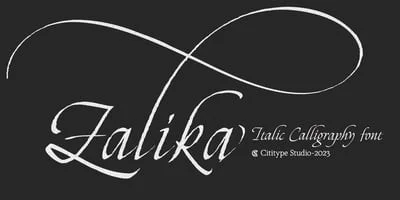
Zalika Font
The Zalika Font is excellent for fashion magazines, beauty product packaging, elegant wedding invitations, luxury jewelry branding, boutique hotel signage, feminine lifestyle blogs, cosmetic advertisements, and high-end spa materials. This sophisticated typeface works beautifully in applications where grace and refinement are essential, making it perfect for brands that target discerning audiences who appreciate delicate beauty and timeless elegance.
What makes Zalika Font exciting is its graceful femininity and ethereal beauty that captures the essence of modern sophistication. The font's flowing curves and delicate letterforms create an atmosphere of elegance and luxury, making it perfect for brands that want to communicate exclusivity and refined taste. Its balanced proportions and subtle details evoke feelings of grace and beauty, ensuring that every application feels carefully curated and thoughtfully designed.
The Zalika Font family typically includes light, regular, and bold weights, often complemented by elegant italic variations and decorative swashes. Many versions feature extended character sets with international language support, stylistic alternates, and ornamental elements that enhance the font's sophisticated appeal and provide designers with extensive creative flexibility.
For designers creating projects that require feminine elegance and sophisticated charm, Zalika Font offers exceptional versatility. Its ability to instantly communicate luxury and refinement makes it an invaluable asset for fashion brands, beauty companies, and any project requiring typography that embodies grace, beauty, and contemporary feminine sophistication.